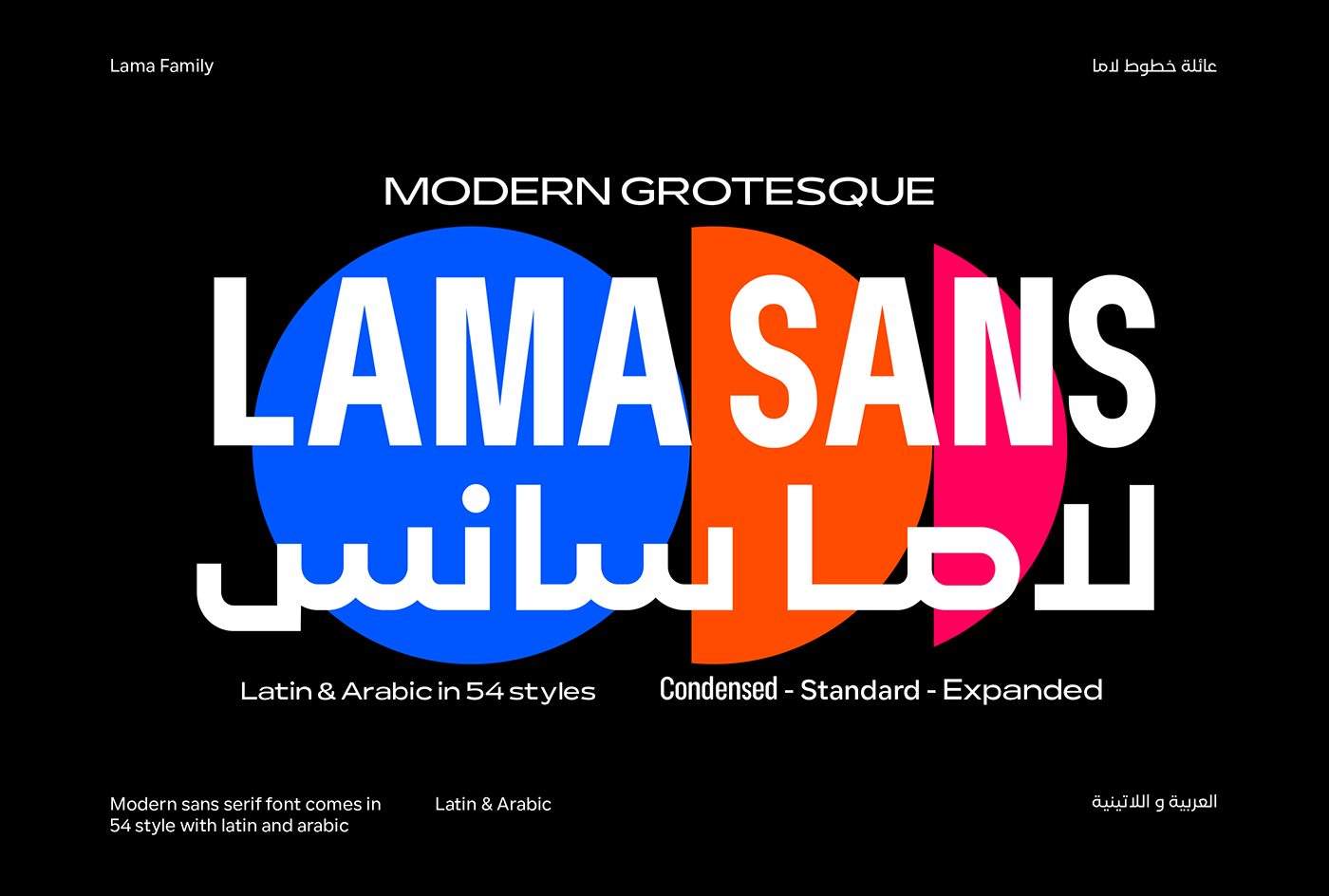
Lama Sans Font Family Latin And Arabic
Lama Sans is a masterfully crafted typeface family designed specifically for projects that demand excellence in both Latin and Arabic scripts. With its clean, contemporary aesthetic and extensive typographic features, this font family provides designers with the tools to create sophisticated bilingual work that meets the highest standards of both writing systems.
Design Philosophy:
- Modern, minimalist design language
- Clean lines with contemporary appeal
- Perfect balance between Latin and Arabic aesthetics
- High-quality, legible letterforms
- Unified visual system across both scripts
Complete Typographic System:
- Multiple Weights: Full range from light to bold
- Regular & Oblique Styles: Italic/slanted variants for emphasis
- Adjustable Letter Spacing: Precise typographic control
- Case Support: Complete uppercase and lowercase for Latin
- Consistent Quality: Unified design across all variations
Latin Script:
- Modern sans-serif design with clean geometry
- Complete uppercase and lowercase characters
- Numerals, punctuation, and special characters
- Excellent legibility at all sizes
- Professional, contemporary appearance
Arabic Script:
- Modern sans-serif Arabic design
- Complete character set with full diacritics
- Proper character connections and positioning
- Harmonious weight and proportion with Latin
- Clean, readable forms
Language Support:
- Full support for both Latin and Arabic alphabets
- Extensive character sets for professional use
- True bilingual capability
- Web Design: Clean, modern digital typography
- Graphic Design: Branding, posters, marketing materials
- Print Materials: Books, magazines, brochures
- Mobile Applications: Clear interface design
- Corporate Communications: Professional bilingual materials
- Editorial Design: Publications with contemporary style
- Packaging: Modern product presentation
- Signage: Clean, professional displays
- Comprehensive Family: Multiple weights and styles
- Modern Design: Clean, minimalist aesthetic
- Typographic Control: Adjustable spacing and features
- Bilingual Excellence: Perfect for Latin and Arabic projects
- Professional Quality: High-caliber font for serious work
Key Features of Lama Sans Font Family:
- Multiple weights from light to bold
- Regular and oblique (italic) styles
- Modern, minimalist Latin and Arabic design
- Adjustable letter spacing for precise control
- Complete Latin and Arabic character sets
- Perfect for contemporary bilingual design
The creation of Lama started with a challenge to design a font suitable for both digital and print. We aimed to make a flexible concept that would go along with many mediums including, websites, advertisements, and publications. This mission required supporting up to fifty languages that vary between Latin and Arabic. In addition to and introducing different styles from normal to compressed and wide. And as a result, the font would be eligible to fit titles, body texts, and headlines in bold sizes and small spaces.